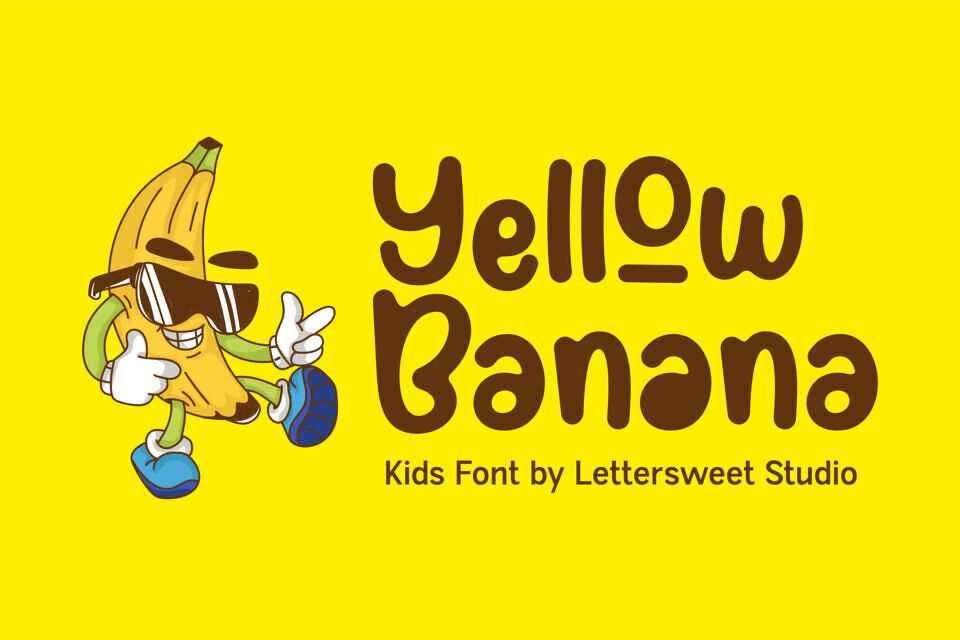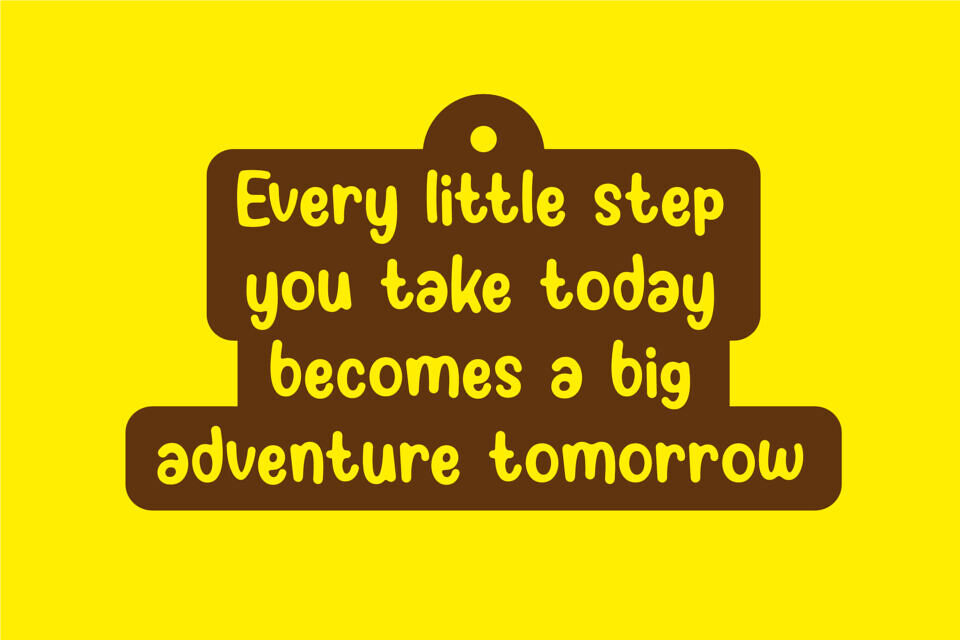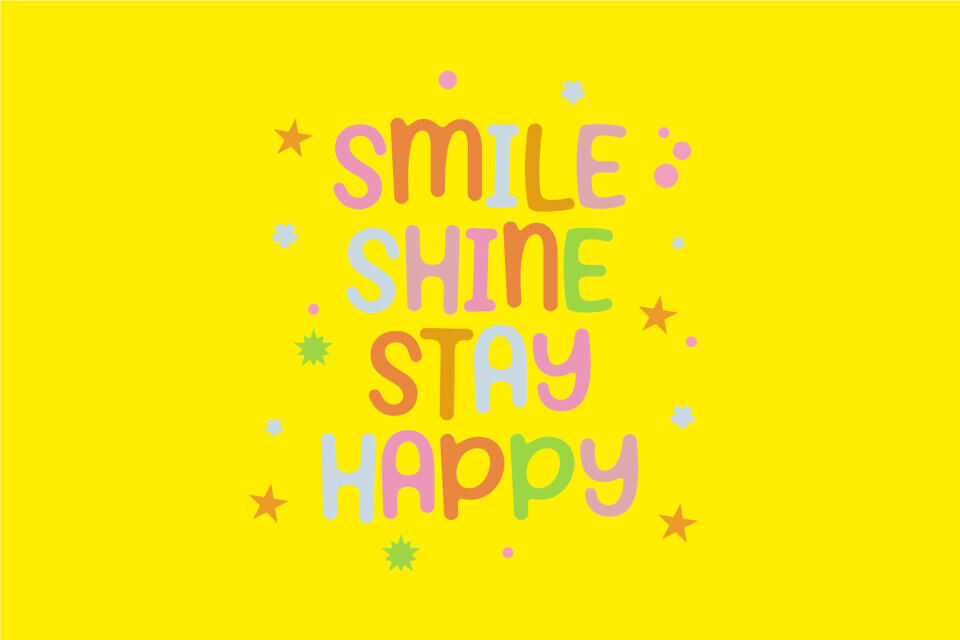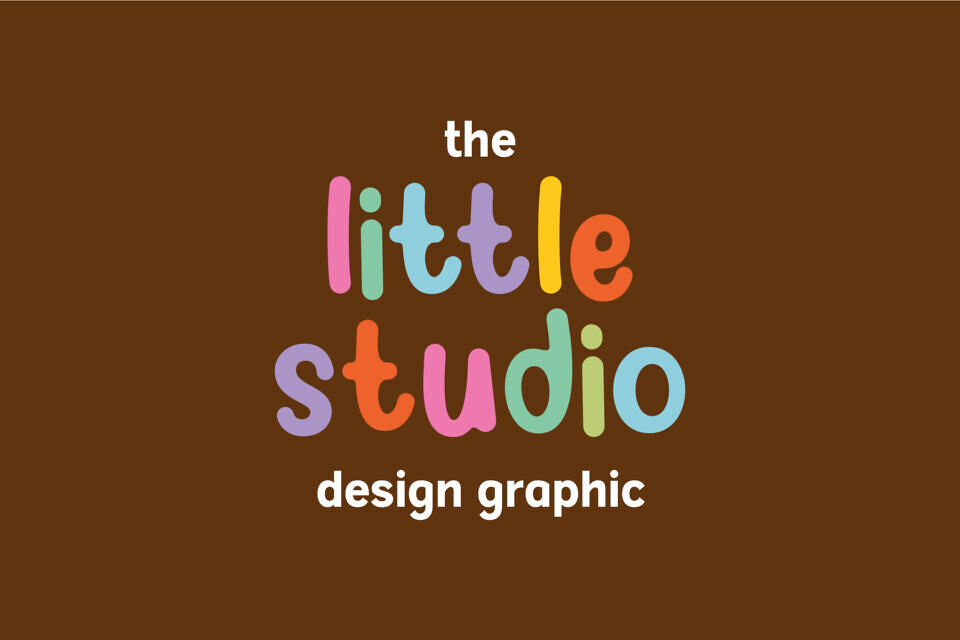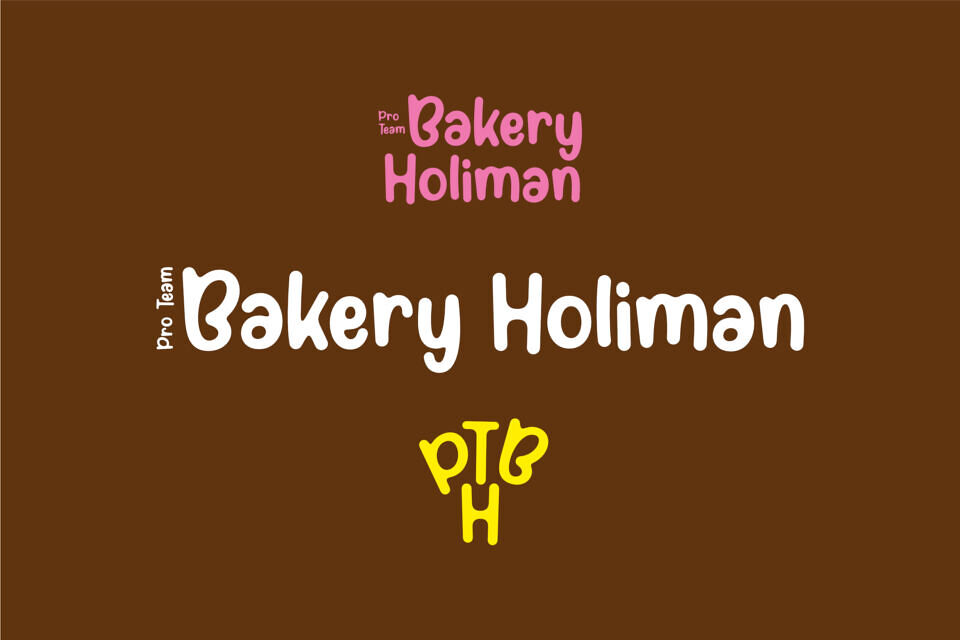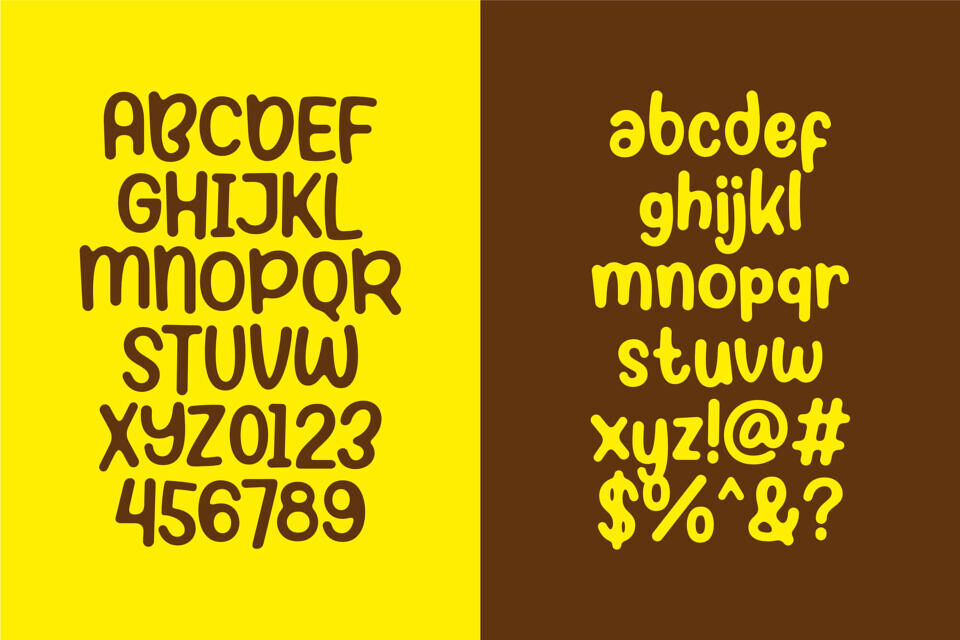
Yellow Banana is a playful kids font with bold, chunky letters and a fun personality. Perfect for children projects, school designs, cartoons, posters, birthday themes, packaging, logos, and playful branding. Its cute and friendly style makes every design feel cheerful, energetic, and easy to read.